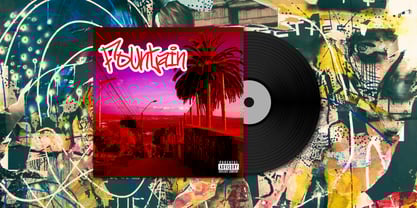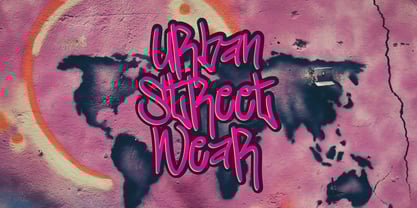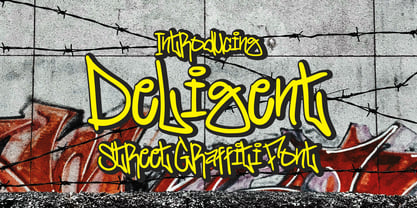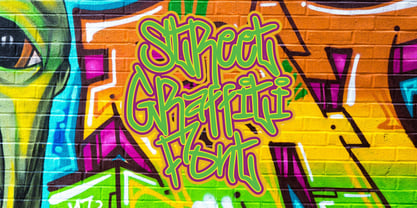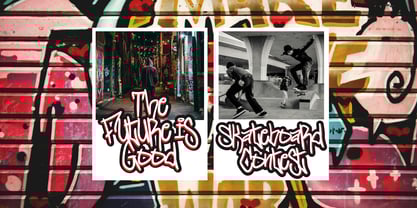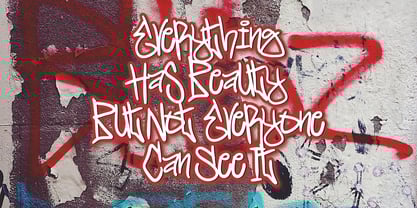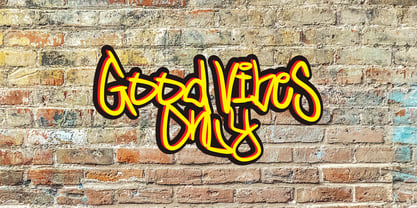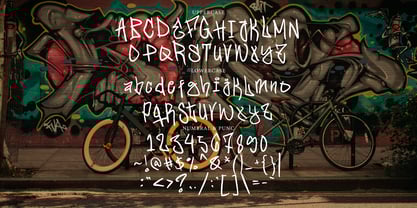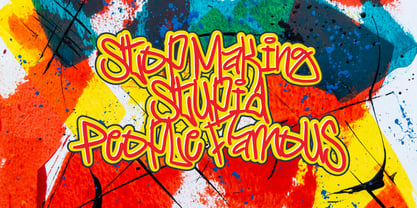
Deligent Graffiti
by Tebaltipis Studio
The Deligent Graffiti Font Family was designed by Dzulka Elfira and published by Tebaltipis Studio. Deligent Graffiti contains 1 styles. More about this family
Deligent Graffiti Font
Dive into the world of contemporary design with Deligent Graffiti Font, a stylish Graffiti font that exudes a sleek and sophisticated vibe. With its seamless strokes and modern aesthetics, Deligent Graffiti Font is the perfect choice for design projects that require a touch of minimalism and elegance.
Designers: Dzulka Elfira
Foundry: Tebaltipis Studio
Deligent Graffiti